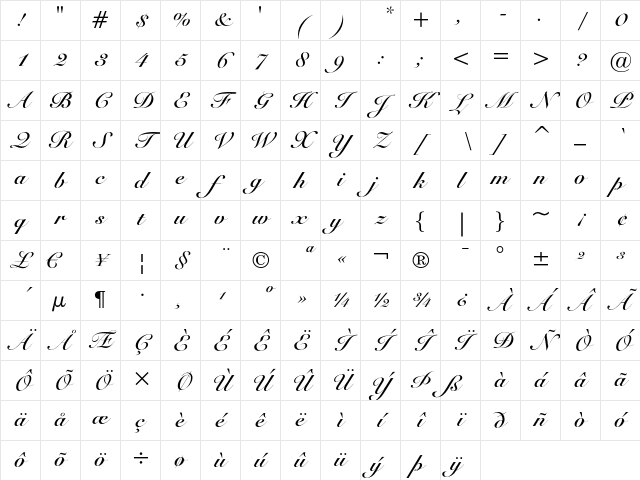
Bitstream Roundhand Bold
Bitstream Roundhand Family
Design Context for Bitstream Roundhand
Bitstream Roundhand flows with the natural rhythm of handwritten lettering, making it ideal for designs that call for warmth and personal expression. Its bold stroke weight gives it real presence on the page.
Font Pairing: Combine Bitstream Roundhand with a simple geometric sans for maximum contrast - the tension between flowing curves and clean structure is a classic typographic pairing.
Pro Tip: Use Bitstream Roundhand for short runs of text - names, titles, or taglines. Extended body copy in script faces tires the eye quickly.